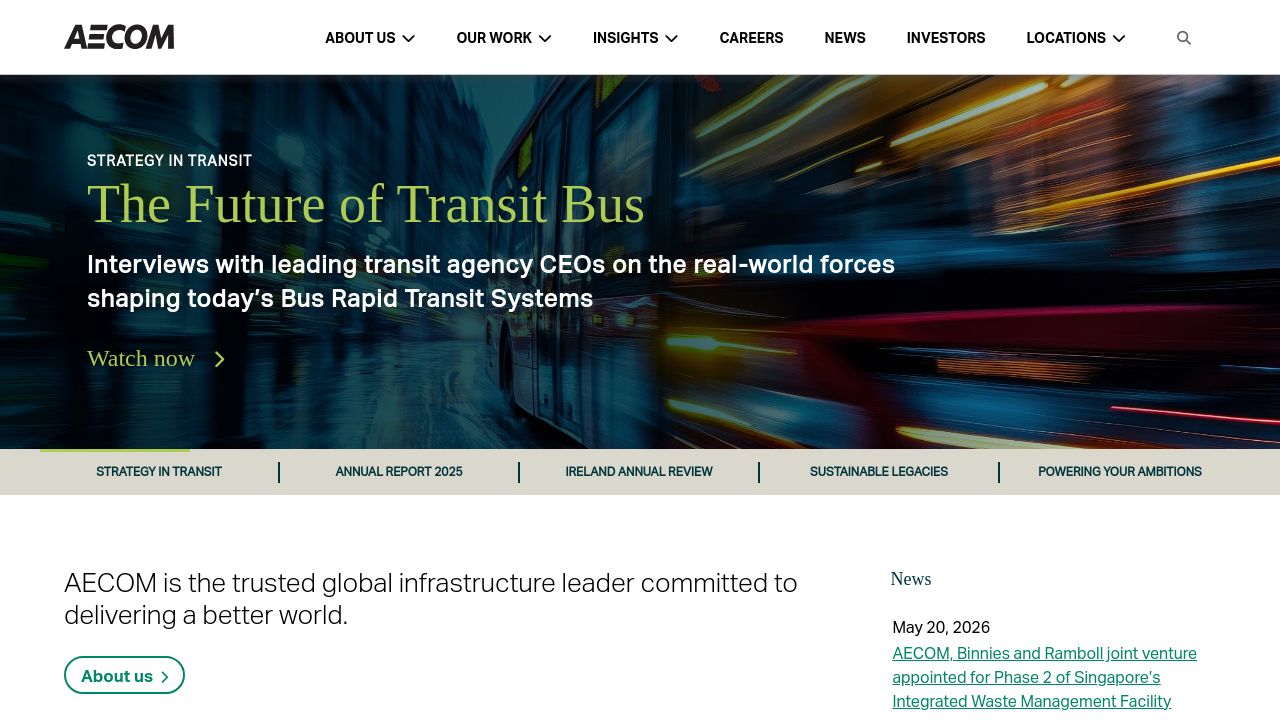
aecom.com: What fonts does Aecom use? - FontAwesome, d-din_condensedregular, eg-font
What fonts does Aecom use?
AECOM, a leader in engineering and infrastructure, employs a unique typographic palette that reflects its commitment to innovation and clarity. The primary fonts, including FontAwesome, d-din_condensedregular, and AECOM Icon, enhance the brand's visual identity by providing versatility and a contemporary edge. These custom typefaces cater to a professional audience, ensuring that the information is presented in a concise and impactful manner, while fallback options like Arial and Helvetica maintain accessibility across platforms.
AECOM Sans BdArialHelveticasans-serif
AECOM SansArialHelveticasans-serif
What fonts does AECOM use on their website?
AECOM primarily uses custom fonts such as FontAwesome, d-din_condensedregular, and AECOM Icon. These fonts are complemented by fallback options like Arial and Helvetica.
How do AECOM's fonts compare to standard fonts?
AECOM's use of custom fonts like d-din_condensedregular offers a distinct look compared to standard fonts like Arial. This uniqueness helps convey their brand identity more effectively.
What styles and weights do the AECOM fonts include?
AECOM's typography features several weights, primarily in normal style. Fonts like d-din_condensedregular and AECOM Icon are specifically crafted for their branding needs.